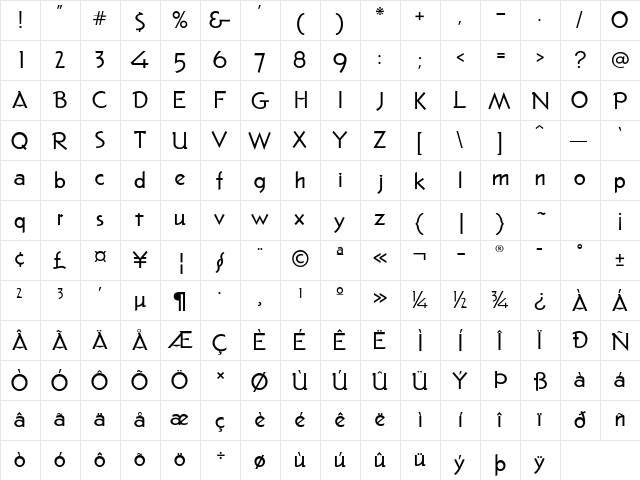
Pacific ClipperBkSG
Design Context for Pacific Typeface
Pacific offers clean, dependable letterforms without strong stylistic allegiance, making it a practical choice for designers who need flexibility.